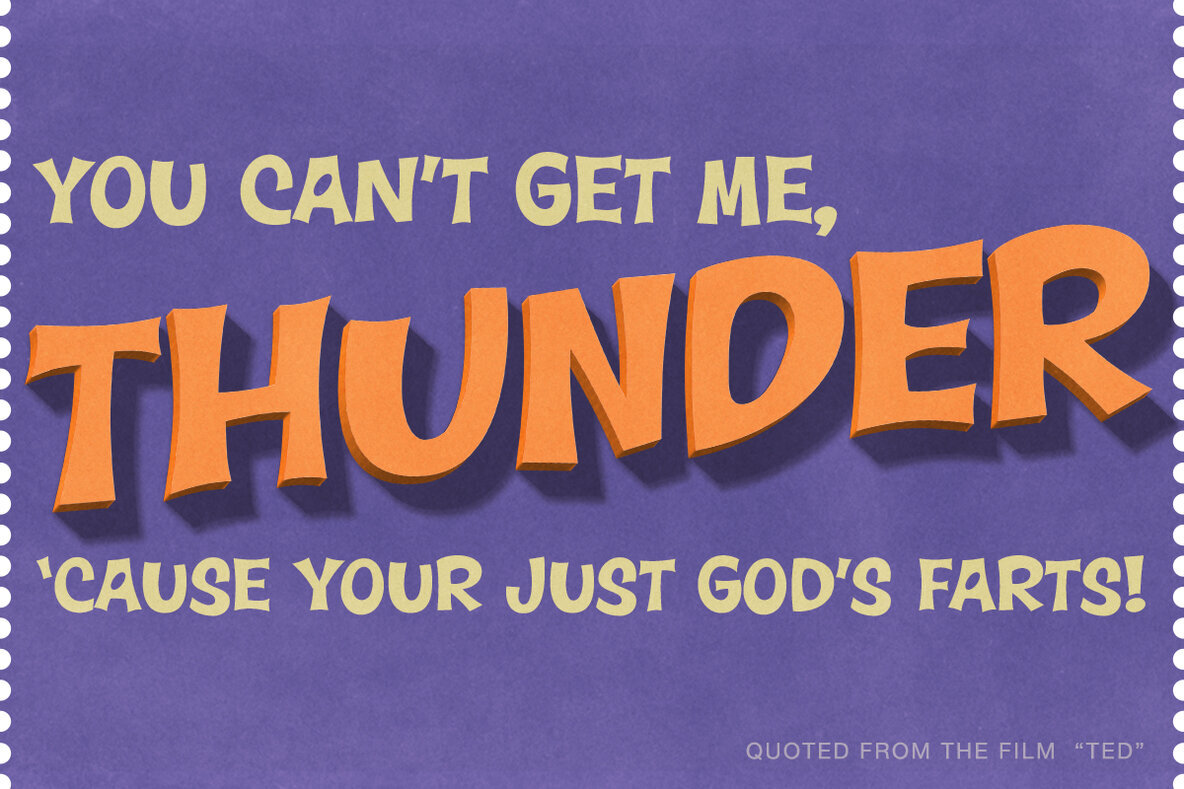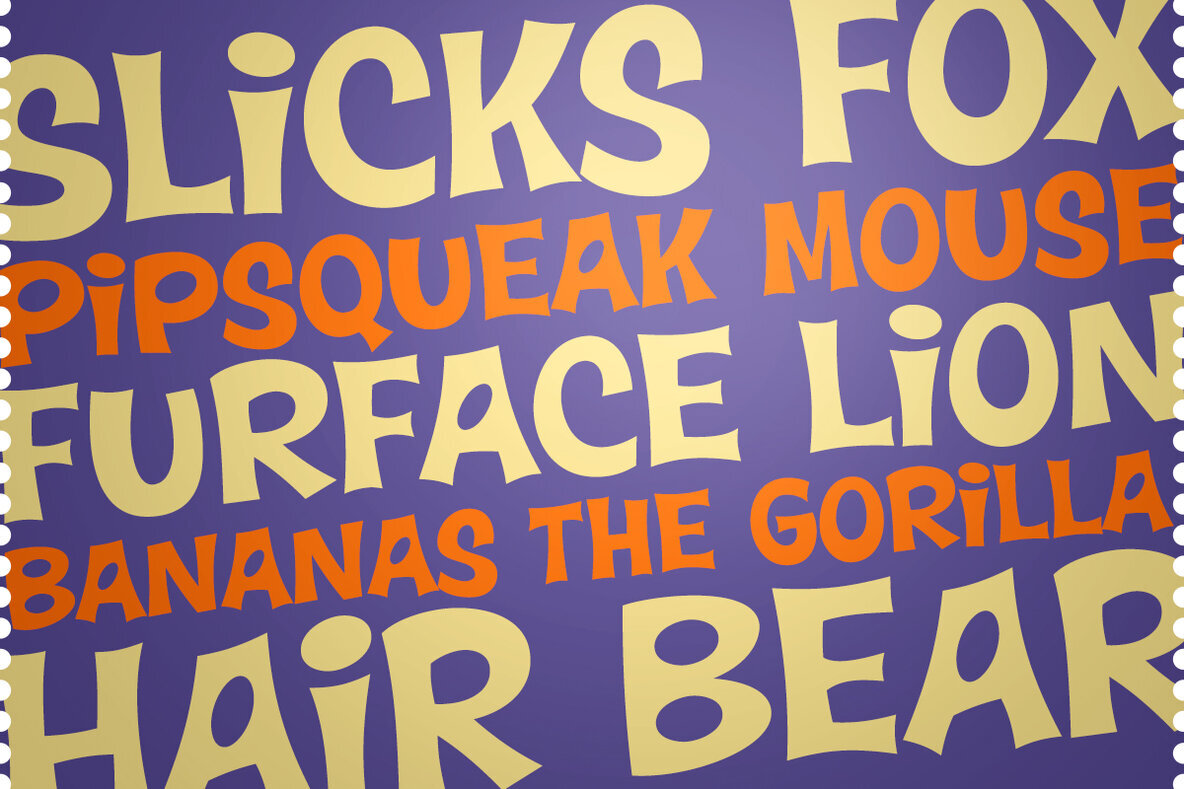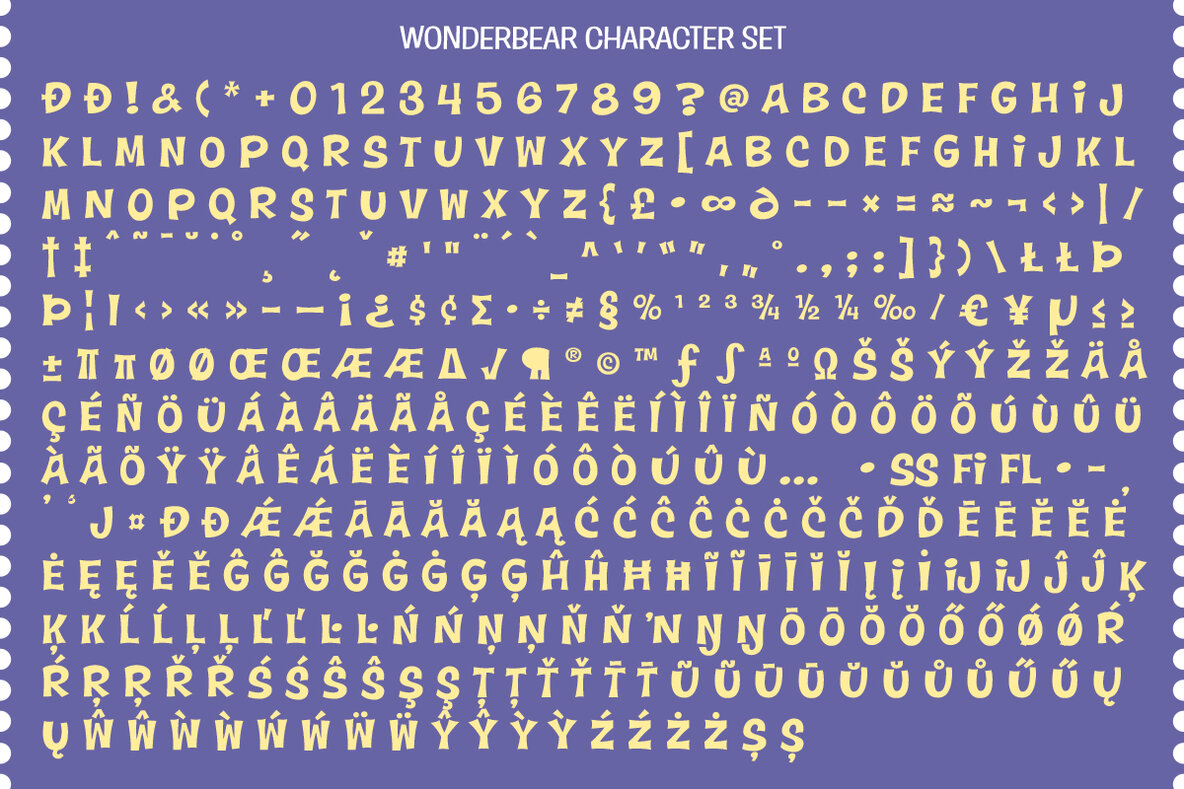
Wonderbear Font
Wonderbear PB
Capture the nostalgic vibe of the 1970s with the Wonderbear typeface, inspired by the whimsical world of the Hair Bear Bunch. This playful font exudes retro charm, recreating the vibrant energy of classic cartoons. Designed with Caps/Alt Caps, Wonderbear delivers a bold, eye-catching style perfect for projects that require a touch of fun and quirkiness.
Ideal for graphic designers seeking to incorporate a sense of nostalgia into their work, Wonderbear offers versatility across various media. Its funky design elements replicate the era's distinctive flair, making it a suitable choice for posters, comics, and retro-themed branding. Let Wonderbear bring joy and playfulness into your creative projects, enhancing their visual appeal with its timeless character.